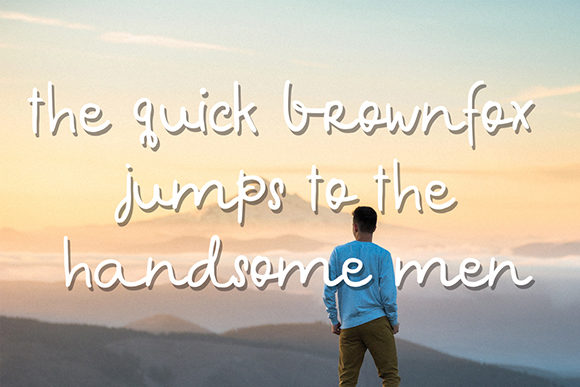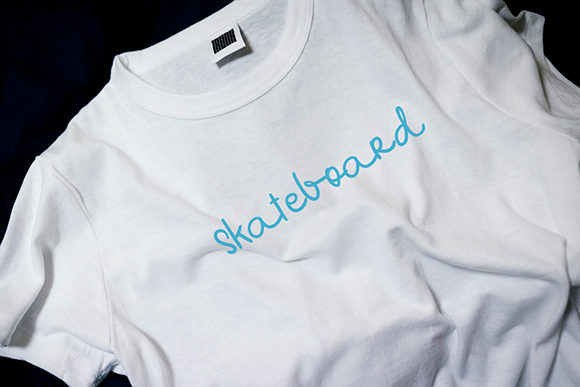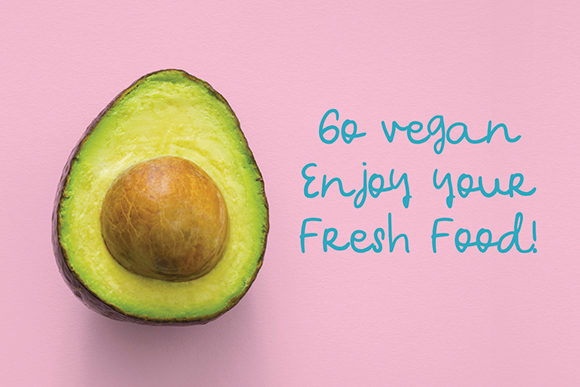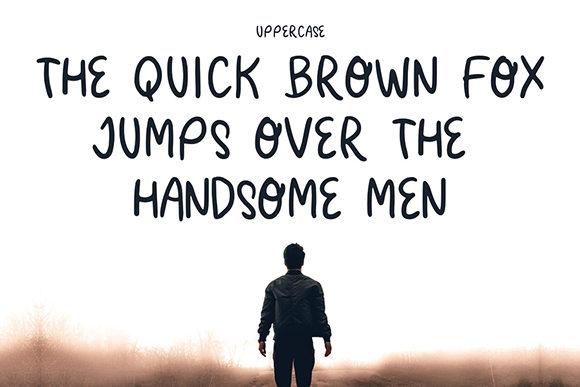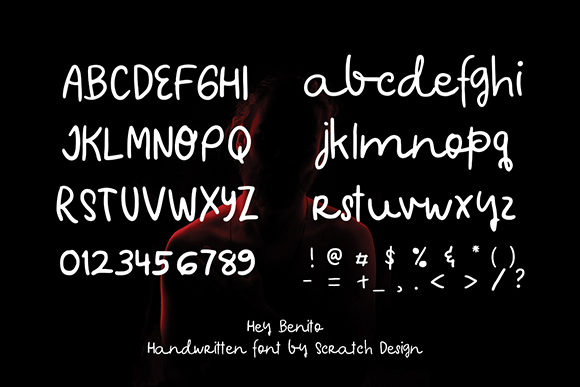
Hey Benito Font
About Hey Benito Font
Hey Benito is a stunning and light handwritten font with a unique feel. It will turn any design project into a true stand out!